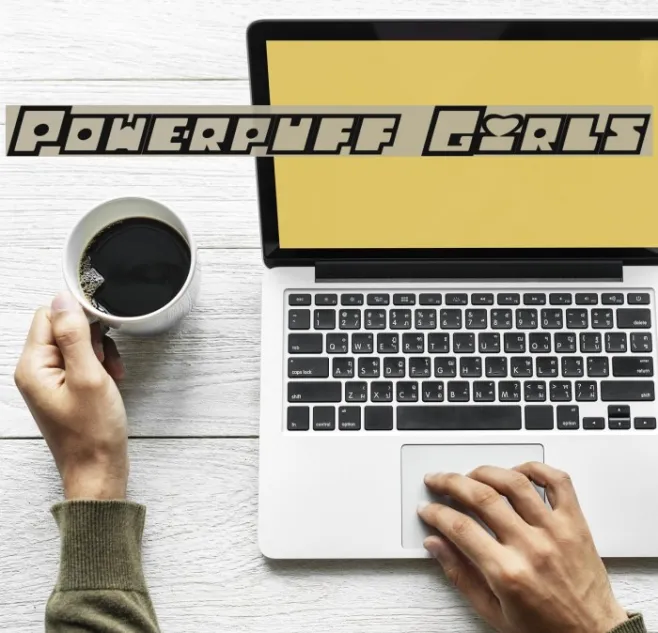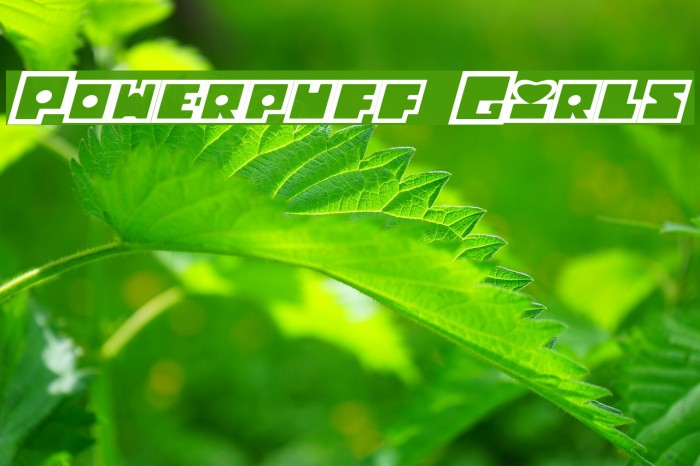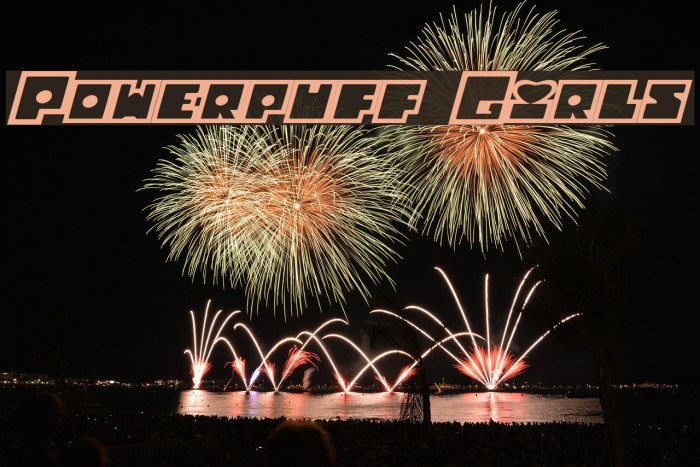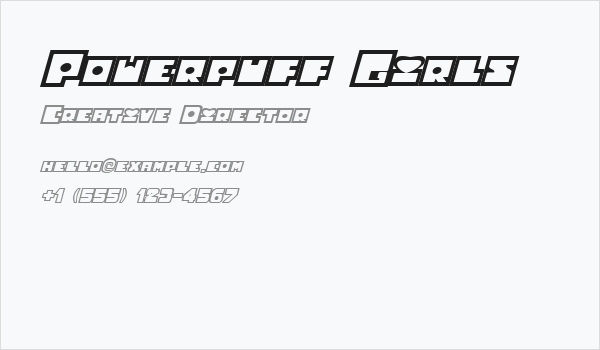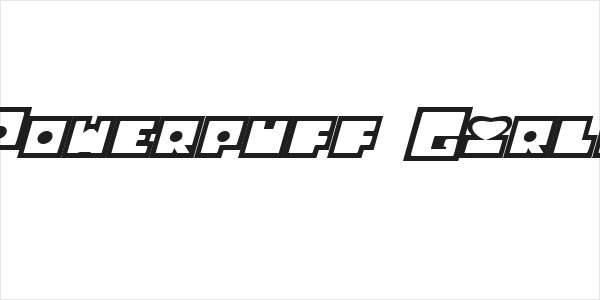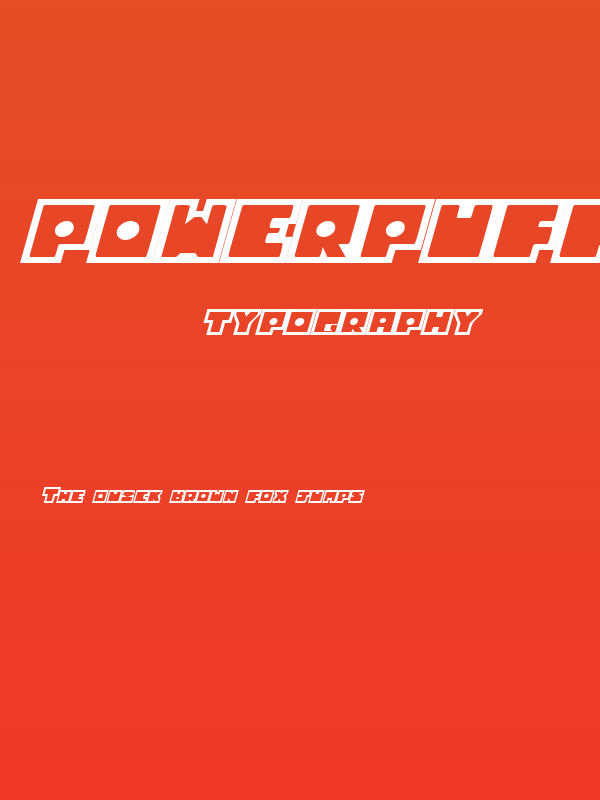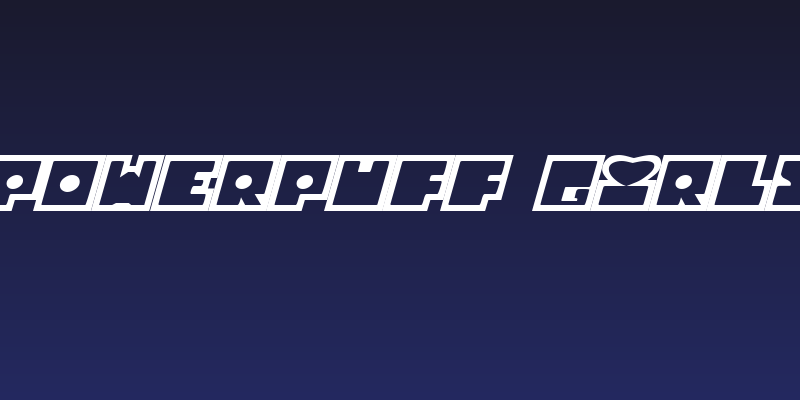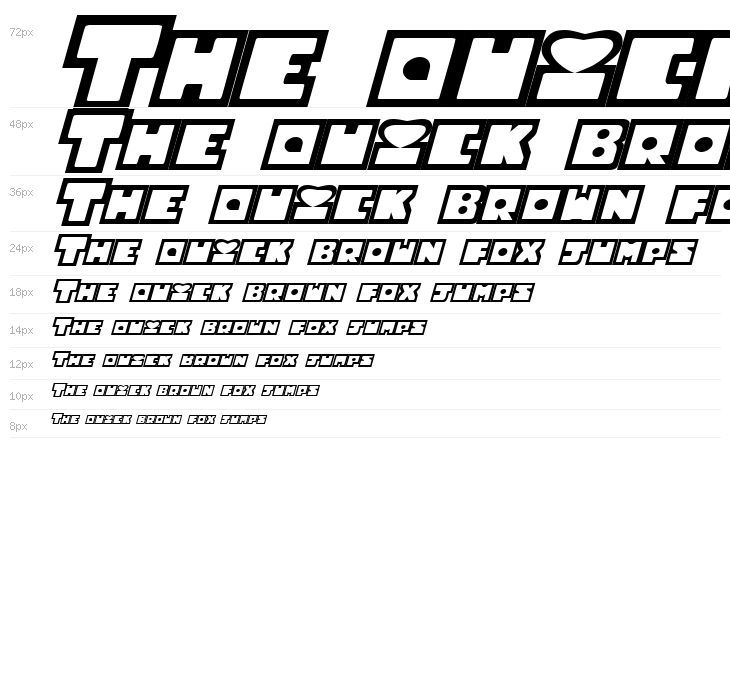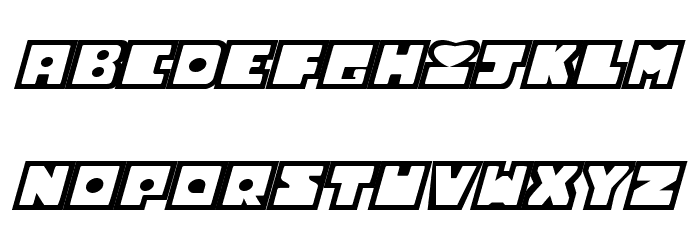
Powerpuff Girls Font
This playful and bold font features a unique, cartoonish style that captures attention with its thick, blocky letters and whimsical design elements. Each character is outlined, adding depth and a sense of fun. The font includes a heart shape within the letter 'I', enhancing its playful nature. It is highly stylized, with angular cuts and a dynamic, energetic feel. The numbers and special characters maintain the same bold, outlined style, ensuring consistency across all elements. This font is perfect for projects that require a lively and youthful touch.
A bold, playful font with outlined, cartoonish characters and whimsical design elements.
• Proposed Projects: Ideal for children's book covers, animated series titles, playful branding, and merchandise aimed at a younger audience.
• Category: Decorative/Display
• Bold: Yes
• Italic: No
• Weight: Bold
• Width: Normal
• Character Spacing: Normal
• Contrast: Low
• Overall Style: Playful, Cartoonish, Energetic
• Use Case: Headlines, Logos, Merchandise